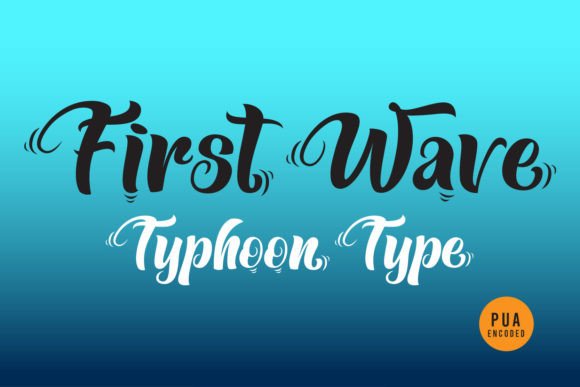
First Wave Font: A Dynamic Script for Modern Web Design
I was halfway through a redesign for a boutique coaching website when the standard sans-serif headers felt completely flat. The layout was clean, the images were high-quality, but the brand lacked a pulse. That is exactly when I decided to test First Wave, a dynamic English font that embodies the essence of free-spirited creativity. As soon as I dropped this Script Handwritten typeface into the hero section, the entire mood of the page shifted from corporate to inviting. It gives the impression of being hand-drawn with broad, fluid strokes, instantly adding a human touch that static digital fonts often miss. For any web designer or digital product creator looking to elevate a brand experience, finding the right Fonts is about more than just legibility; it is about emotion.
Using First Wave for High-Impact Hero Sections and Landing Pages
When integrating First Wave into a live project, the first place I always test is the above-the-fold area. Because this Script Handwritten style features such distinct, broad strokes, it commands attention without shouting. In my recent landing page test, I used it for the main headline against a soft, textured background. The fluid nature of the letterforms guided the user's eye naturally across the screen, creating a visual flow that standard block letters simply could not achieve. When selecting Fonts for a campaign landing page or a course sales page, you need a typeface that stops the scroll. First Wave excels here because its dynamic energy suggests movement and action, making it perfect for introducing a new product or service with personality.
However, using a display font like this requires careful consideration of scale. On desktop views, the broad strokes look magnificent at large sizes, but I had to ensure they didn't become pixelated or lose their crisp edges on smaller laptop screens. The key is to let the font breathe; give it plenty of whitespace so the hand-drawn aesthetic doesn't feel cramped. This approach works exceptionally well for portfolio homepages where the designer wants to showcase a unique voice immediately upon arrival.
Optimizing Readability and Mobile Responsiveness for Script Fonts
One of the biggest challenges with any Script Handwritten typeface is maintaining readability on mobile devices. During my testing phase with First Wave, I paid close attention to how the fluid strokes rendered on smartphones. While the font is stunning for headlines, I quickly realized it should not be used for body copy or long paragraphs. The intricate connections between letters can blur together on small screens if the font size is too reduced. Therefore, I reserved First Wave strictly for short phrases, subheadings, and call-to-action buttons where the character count is low.
To ensure a seamless user experience across all devices, I paired these decorative Fonts with a clean, geometric sans-serif for the main content. This contrast creates a clear visual hierarchy, allowing users to scan the page efficiently while still enjoying the artistic flair of the headings. When designing for a boutique online store, for instance, I used First Wave for product category titles and promotional banners, keeping the product descriptions in a highly readable system font. This balance ensures that the "free-spirited creativity" of the brand comes through without sacrificing usability or accessibility for mobile shoppers.
Strategic Font Pairing for Cohesive Digital Brand Identities
Choosing First Wave is only half the battle; the other half is knowing what to pair it with. A Script Handwritten font can easily overwhelm a design if it competes with other decorative elements. In my workflow, I treat First Wave as the accent piece of the typographic puzzle. For a modern editorial look, I often pair it with a sharp, high-contrast serif font for subheaders, which adds a touch of sophistication to the playful script. Alternatively, for a tech-forward SaaS founder or a course creator wanting a friendly vibe, pairing it with a neutral sans-serif keeps the interface clean and professional.
The goal is to let the broad, fluid strokes of First Wave stand out as the primary emotional driver of the brand identity. When building a digital brand kit, I recommend using this font consistently for logo text, social media graphics, and key website headers. This repetition builds recognition. If you are working on a blog redesign, try using First Wave for pull quotes or section dividers. These small touches break up the monotony of text-heavy pages and keep the reader engaged. By strategically placing these Fonts, you create a rhythm that feels intentional and polished rather than random.
Implementing First Wave in Commercial Web Projects and Licensing
Before finalizing any design for a client, especially for commercial use like an online shop or a paid advertising campaign, checking the licensing details of your chosen Fonts is non-negotiable. First Wave is designed to be a versatile asset, but understanding its file formats and webfont availability is crucial for performance. I always verify that the font files are optimized for fast loading to prevent layout shifts, which can hurt SEO and user retention. Since this Script Handwritten style relies on smooth curves, ensuring the webfont version renders correctly across different browsers is a vital step in the QA process.
For entrepreneurs and creative business owners, investing in a premium font like First Wave can significantly differentiate a brand in a crowded market. Whether you are launching a new coaching program, refreshing a portfolio site, or creating a promotional landing page, the right typography signals quality and care. The hand-drawn impression of First Wave tells visitors that there is a human behind the screen, fostering trust and connection. By carefully considering where and how to apply this dynamic typeface, you can transform a standard web layout into a memorable brand experience that resonates with your audience long after they leave the page.